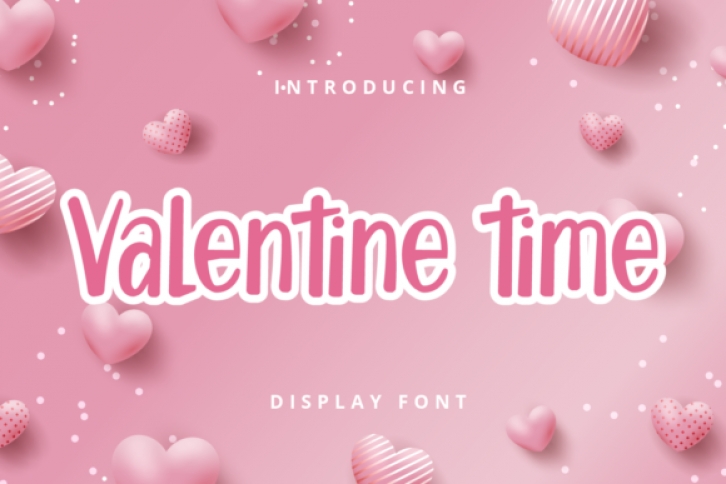
Valentine time is a modern and trendy script font. This original look will appeal to a wide range of crafty ideas, from letterheads and titles, to stationery.